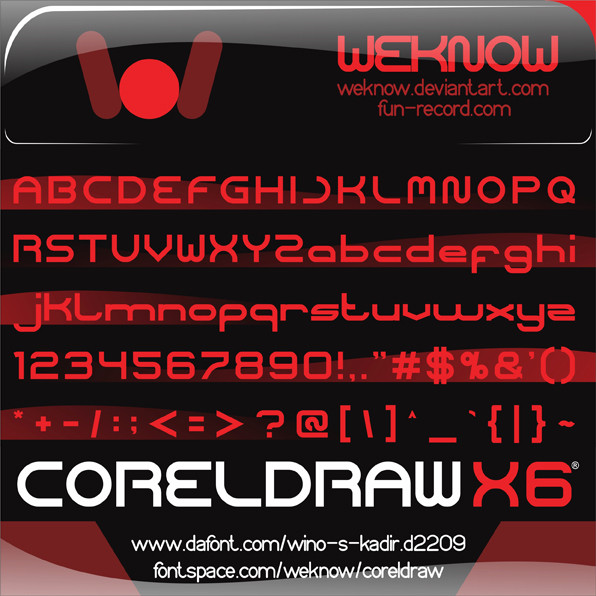
manu fontmy first font - i always wanted to do fonts, and i have some few ideas in my mind... so there'll probably be more to come.
Extremely cool font man! Definite fav
Very sleek! Going to use it for my chat's banner. Will credit you! (Thus the fave to keep track)
love it, very cool clear font style
I already used it for a little logo
I like it so much. Really stylish and clear. Just go on
Very nice! I'll probably use this for one of our roadtest covers on [link] at some point. Great work, thanks!
This is really awesome! I love the clean, modular, futuristic look. +1 Epic Win!
Looks nice even though it looks to be all lower cased.
Nice font. I'm looking forward to looking at more.
This is an excellent font. I'm really liking the simple style of it. Thanks for sharing!
Really stylish man, this is what i just was looking for thanks and fav'd
This font is really awesome dude. You did a nice job. Like it a lot.
nice font!
Awesome, used it for my Miranda skin - which is something I look at all the time at my computer, I'd say. Which means I like your font.
nice font.. i used this is my logo ..
- awesome work!